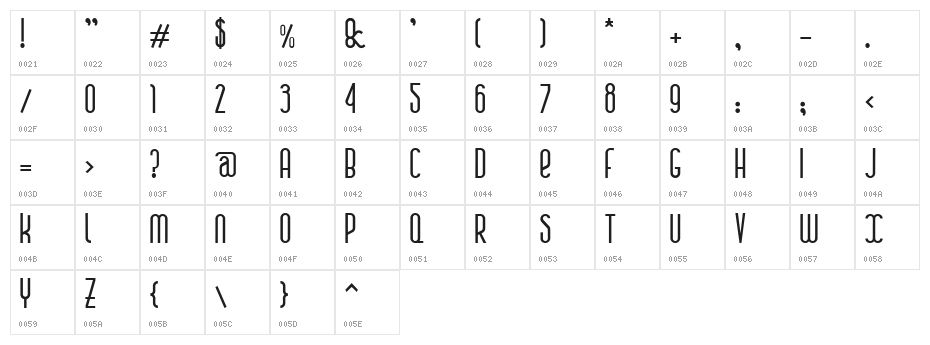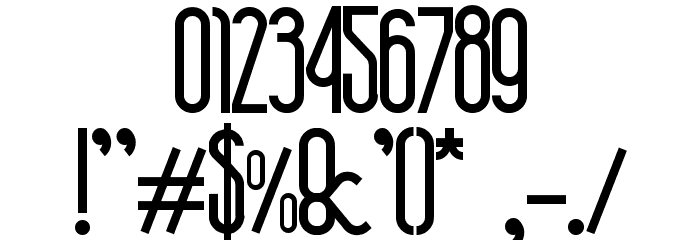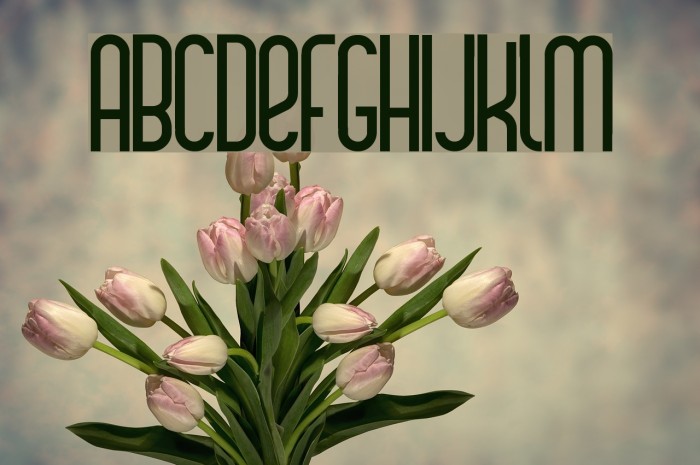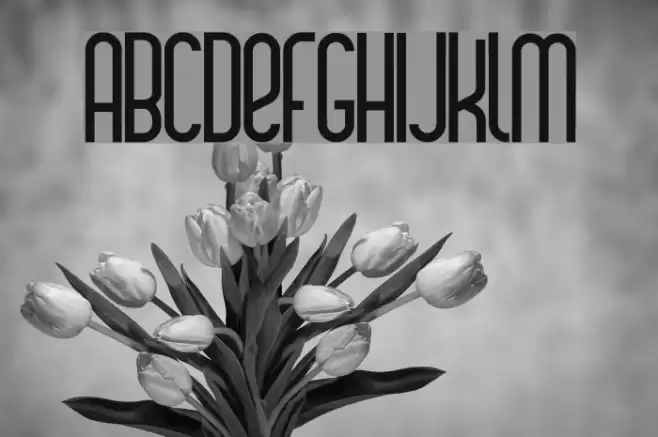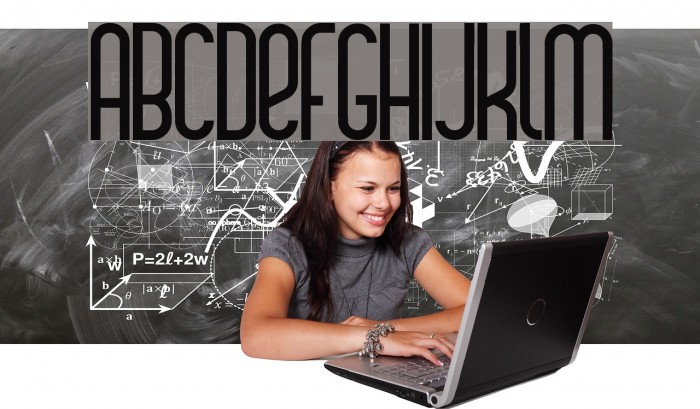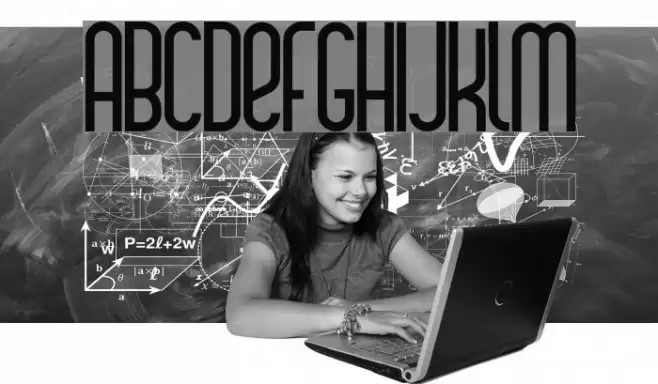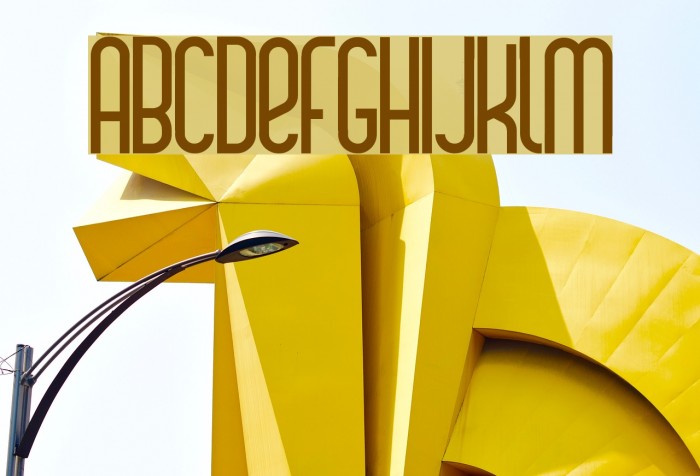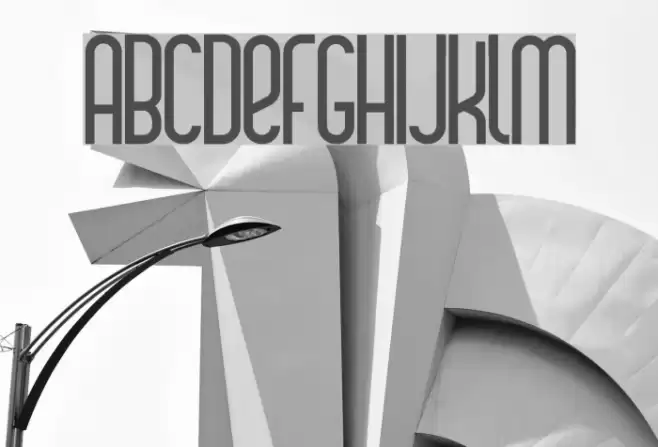
boa© _bold Font
boa© _bold Description
This font features a bold, modern design with elongated, narrow characters that give it a sleek and contemporary look. The uppercase and lowercase letters maintain a consistent height, creating a uniform appearance. The numerals are distinct and easy to read, while the special characters are stylishly integrated into the overall design. The font's clean lines and minimalistic style make it suitable for a variety of design projects, offering a professional yet creative touch.
| Proposed Projects | Ideal for branding, advertising, headlines, and modern web design projects. |